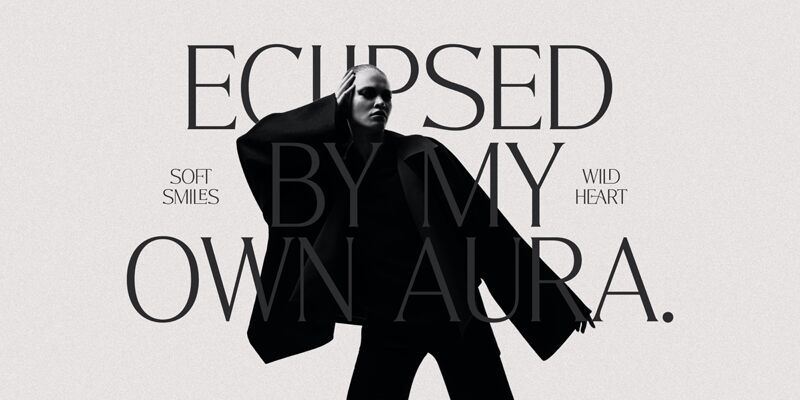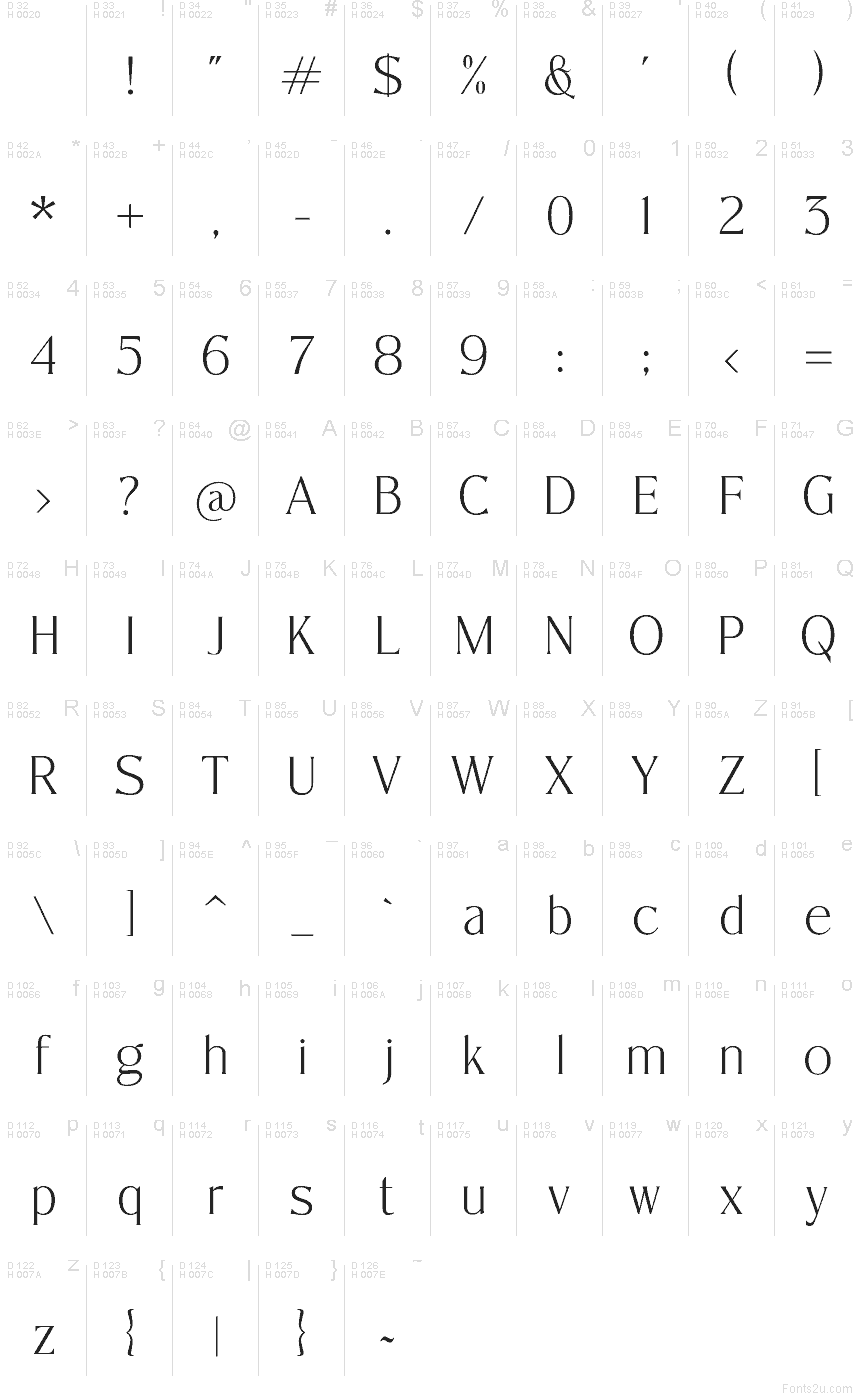
Alisheia font by Dora Typefoundry is a free elegant serif font, with a typeface voice that feels like fresh black ink on smooth paper. Its tall proportions and razor-clean thin strokes give it runway polish, while the confident serifs keep it grounded and readable even at larger sizes.
Using Alisheia, you’ll get striking results on magazine-style headlines, luxury branding, book covers, beauty packaging, editorial quotes, event invitations, and film titles. Set it with generous tracking to let the air between letters do some of the work, and pair this free font with a calm, plain sans for supporting text.